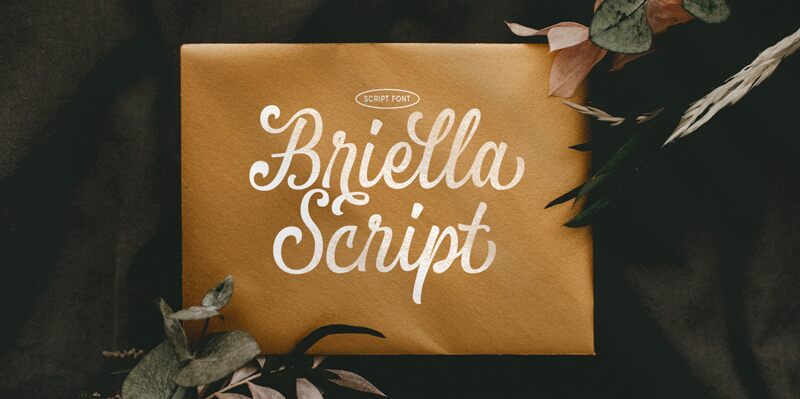
Briella font by Letterhend Studio is a free brush font with ornamental style characteristics. Expressive, elegant, and flowing in appearance, Briella has numerous decorative elements infused in its outline. The classic charm it exudes helps users relive the vintage appeal found in classic calligraphy fonts without having to sacrifice modernity.
Design materials on which Briella excels include packaging, labels and tags, t-shirts and kids apparel designs, branding, book covers, magazines or newspaper headings; beautify bag designs or animate stationary with this astounding font.